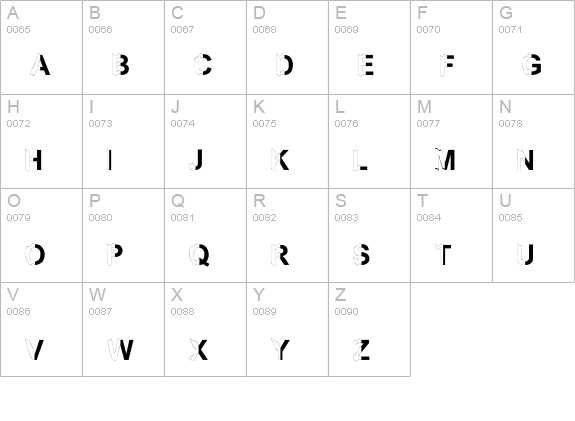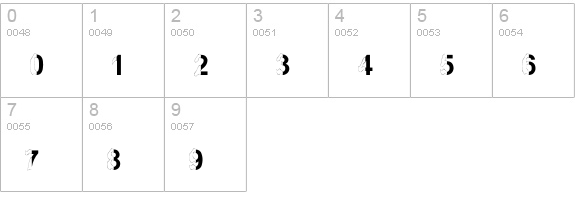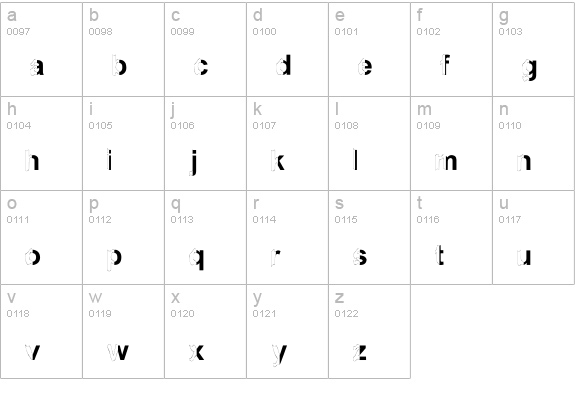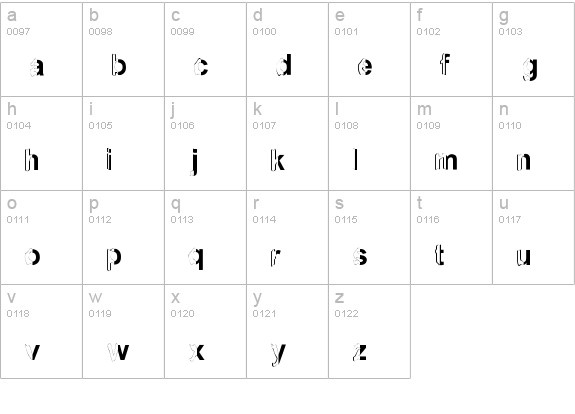
mashy Schizoid Font Details
Introducing the captivating Mashy Schizoid font, a bold and artistic typeface that will add a touch of edgy sophistication to any design project. With its unique and fragmented letterforms, this font exudes a sense of individuality and creativity, making it ideal for those seeking to make a powerful visual statement. Mashy Schizoid font is a perfect blend of modernity and vintage charm, creating a harmonious balance that is sure to captivate the eyes of viewers. Its intricate details and irregular shapes give it a sense of movement and dynamism, making it an excellent choice for titles, headlines, logos, and other attention-grabbing elements. Not only does Mashy Schizoid font possess a striking aesthetic appeal, but it is also incredibly versatile. Whether you're working on a branding project, website design, poster, or even a tattoo design, this font will effortlessly adapt to any creative endeavor, adding a touch of uniqueness and originality. And the best part? Mashy Schizoid font is available for free download exclusively at FontsMarket.com. We believe that creativity should be accessible to all, and that's why we are offering this remarkable font at no cost. So go ahead and unleash your imagination with Mashy Schizoid font - the possibilities are endless!